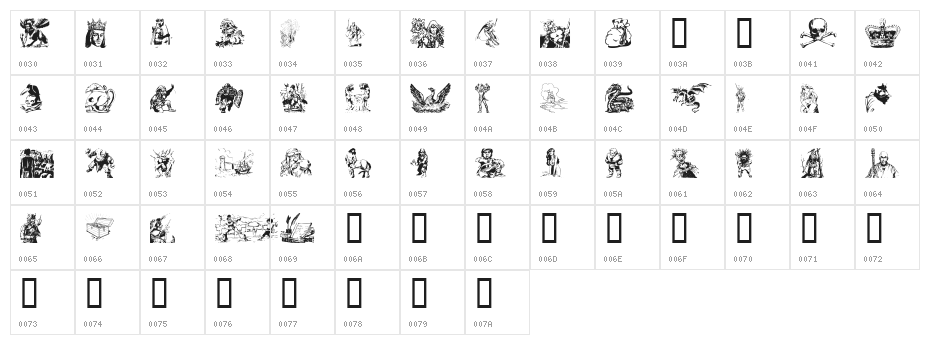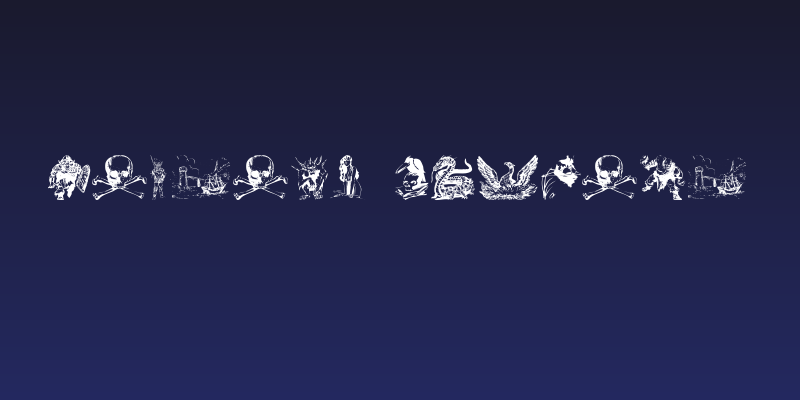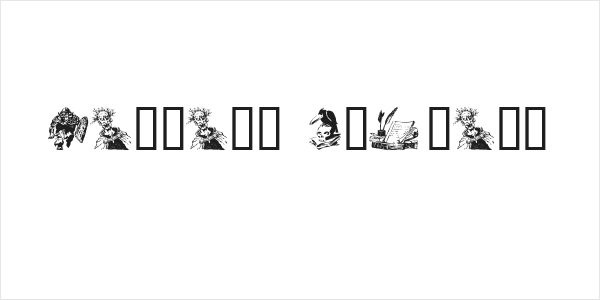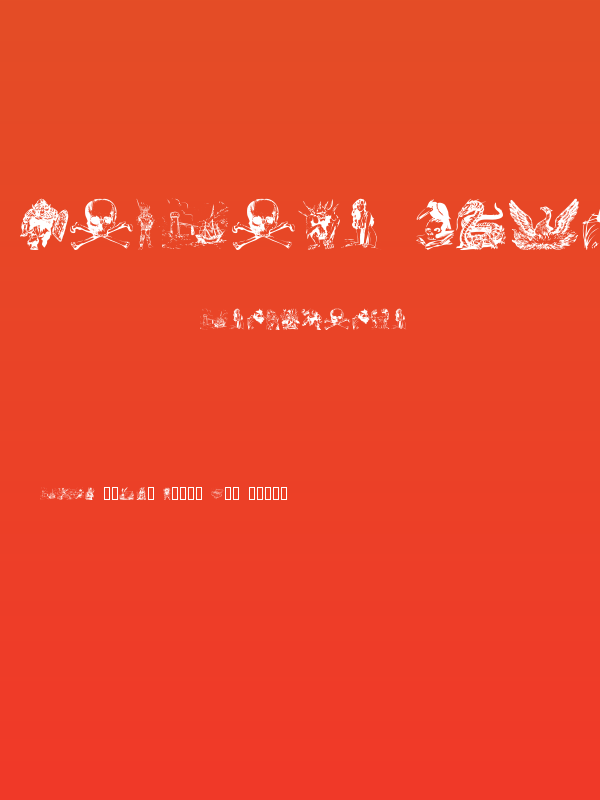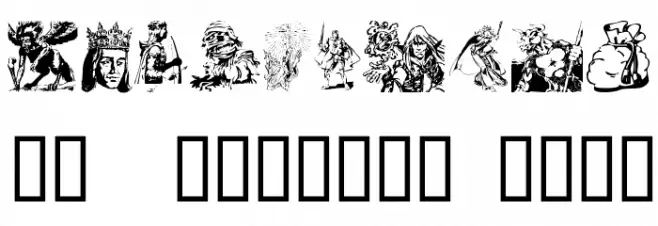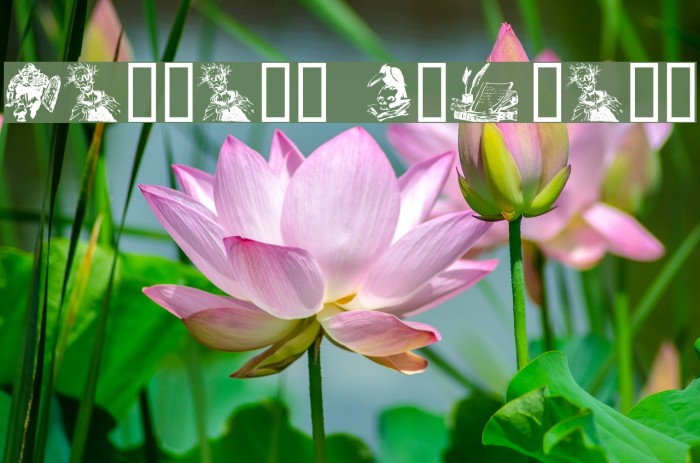
Fantasy Clipart Font
Fantasy Clipart Description
A decorative dingbat font featuring detailed black-and-white fantasy-themed clipart illustrations, including mythical creatures, warriors, crowns, skulls, and other medieval or magical elements. Each character is represented by a unique, intricate drawing rather than a traditional letterform.
| Overall Style | Decorative, Fantasy, Thematic |
| Use Case | Clipart, Decorative elements, Themed graphics |
| Proposed Projects | Tabletop RPG materials, fantasy book covers, game design, posters, invitations, scrapbooking, and themed event decorations. |